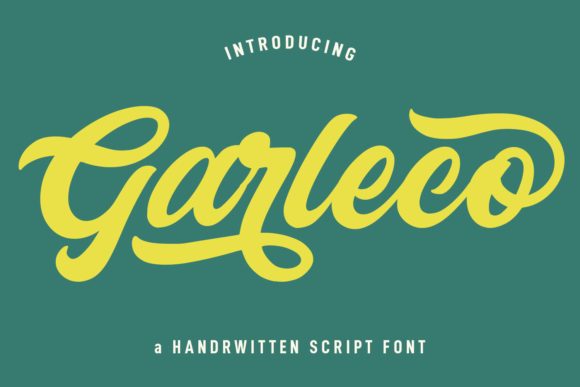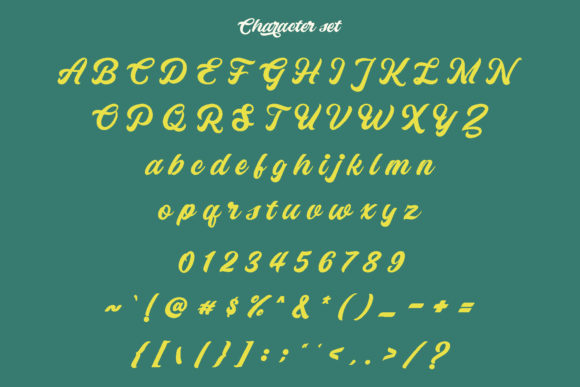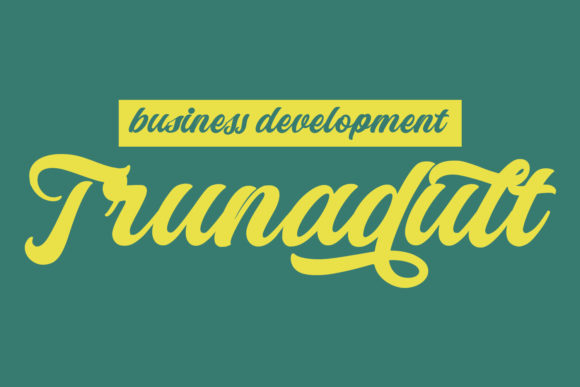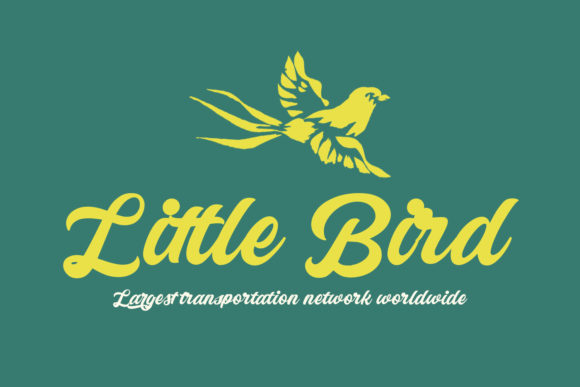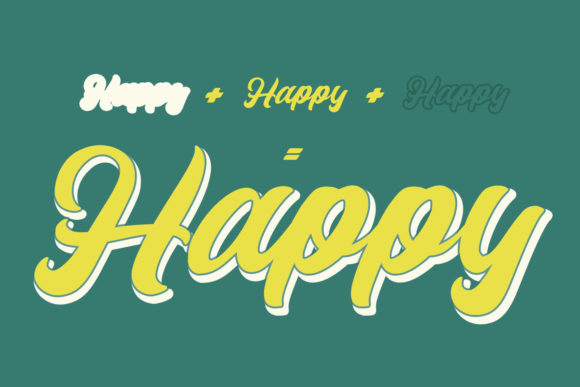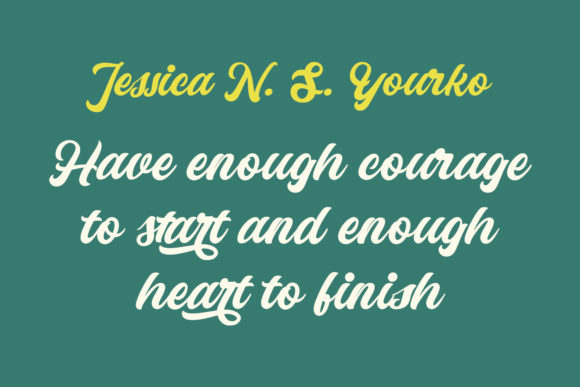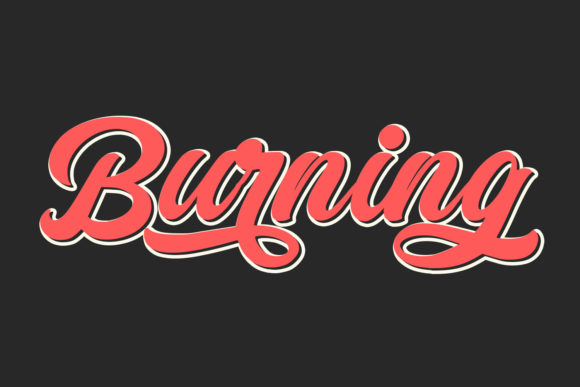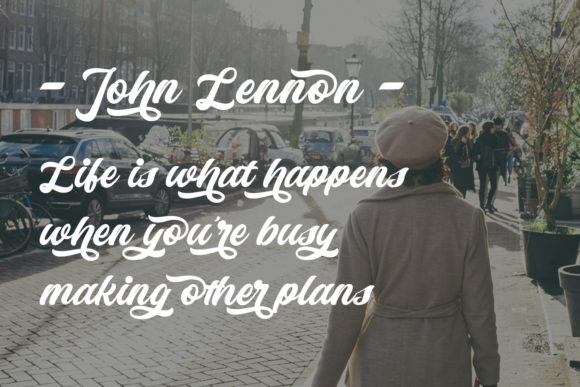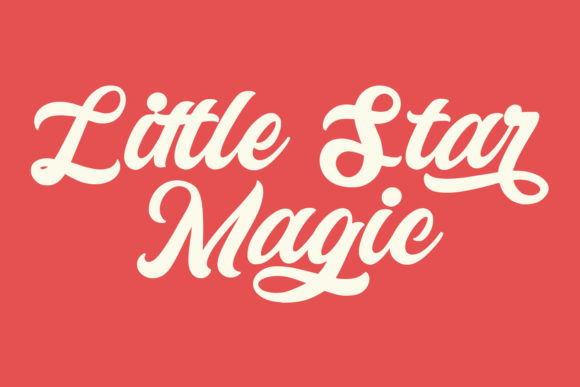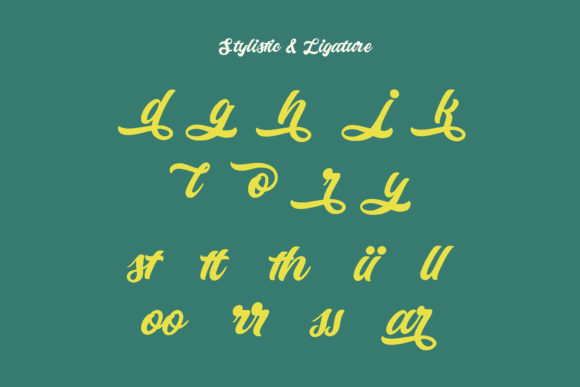
Garleco Font
About Garleco Font
“Garleco” is a retro and bold handwritten font that has been meticulously designed to achieve outstanding results. Its distinct style is imbued with a sense of nostalgia and boldness, making it a perfect choice for adding a touch of elegance and class to your design projects.
The font’s retro and bold nature allows it to stand out and leave a lasting impact on your audience. It carries a unique charm that seamlessly blends with a wide range of design concepts, adding a timeless touch to your creations.
Whether you’re working on packaging, branding, advertisements, or any other design endeavor, “Garleco” adapts effortlessly to meet your needs. Its versatility and ability to evoke an air of nostalgia contribute to its appeal as a font that can enhance various kinds of products.
In essence, “Garleco” is more than just a font—it’s a powerful tool that allows you to infuse your design projects with a sense of elegance and class. Its retro and bold handwritten style opens up creative possibilities, allowing you to create visuals that resonate with your audience. With “Garleco,” your projects become expressions of style and sophistication that capture attention and convey a unique charm.